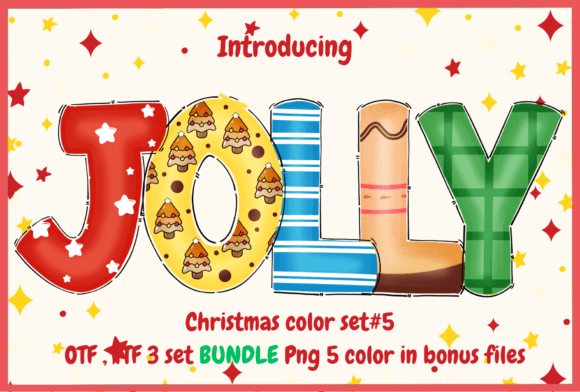
Introducing Jolly Font: The Playful and Authentic Display Font That Will Add Life to Your Designs!
In a world where conformity often overshadows individuality, Jolly Font stands as a vibrant beacon of creativity and self-expression. This captivating display font, brought to you by the talented Itme_digitalart, is a symphony of colors and shapes that will transform your designs into works of art.
With its chunky letters and playful personality, Jolly Font exudes an aura of joy and authenticity that is sure to capture the hearts of your audience. Whether you're crafting children's activities, school projects, or any other design that calls for a touch of whimsy, Jolly Font is the perfect choice.
Imagine the smiles on the faces of children as they explore activity sheets adorned with Jolly Font's playful characters. Picture the excitement in their eyes as they embark on educational journeys guided by this vibrant and engaging font. Jolly Font has the power to ignite imaginations and make learning an unforgettable experience.
But Jolly Font's charm extends far beyond the classroom. Its versatility makes it an ideal choice for a wide range of design projects. Add a splash of color to your business flyers, create eye-catching posters that demand attention, or design social media graphics that pop off the screen. With Jolly Font, the possibilities are endless.